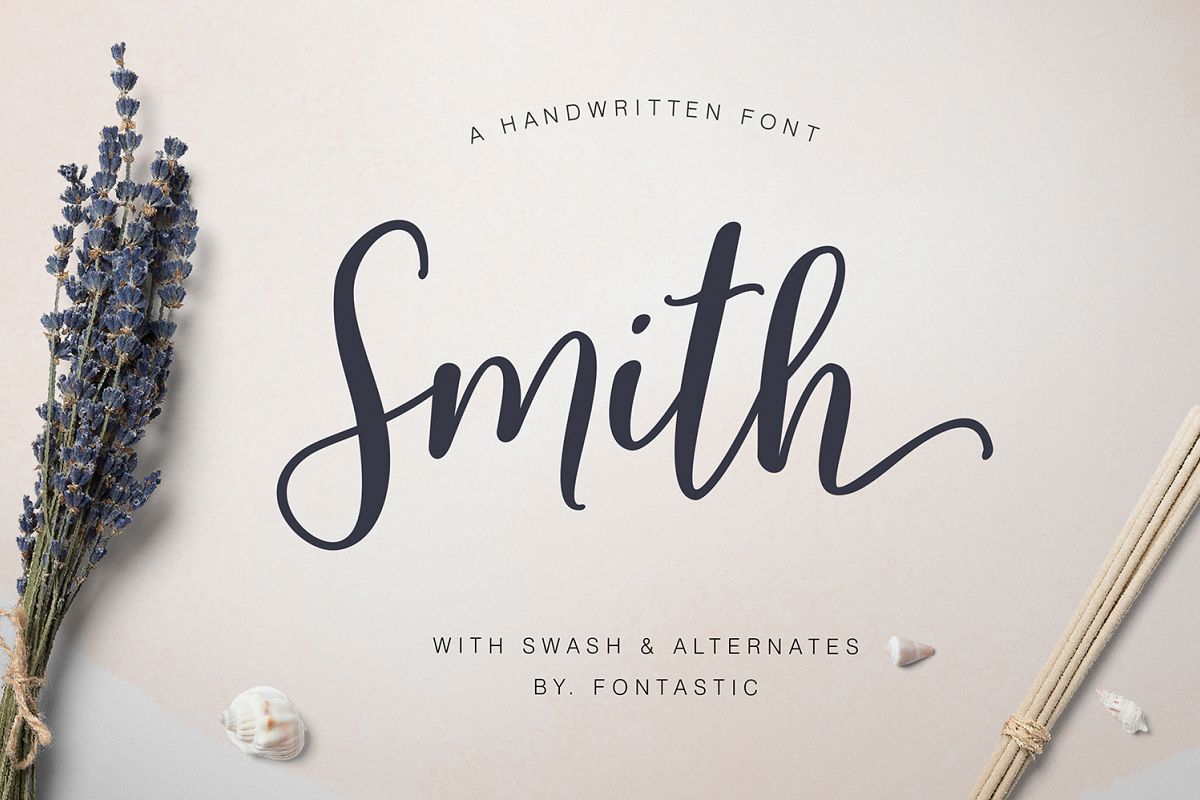
Smith
Smith - Script Liked & SaveSmith Script font style comes with an amazing character. Ideal for a logo, a name tag, handwritten quotations, product packaging, goods, social media and greeting cards. It contains a complete set of lower and upper case letters, assorted punctuation, numbers, and support multi language.you also easy to access these fonts because I've given PUA unicode (font specific code), with tons of character alternatives. This package can be accessed in full by a craftsman or designer.Fonts Included:. Smith Script.otf
Stylistic Alternates of Uppercase & Lowercase
Ligatures & End-Swashes
Multilanguage SupportSmith Script also provided some ligatures and alternatives to lowercase characters, can be accessed in Adobe Illustrator Glyphs panel, or under Stylistic Alternates in Adobe Photoshop OpenType panel.